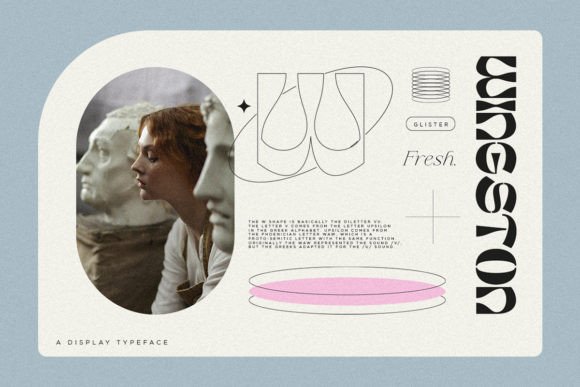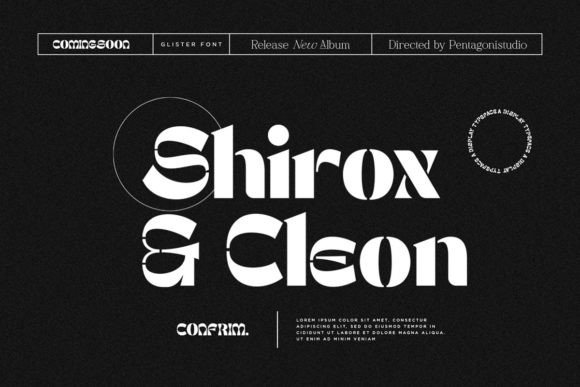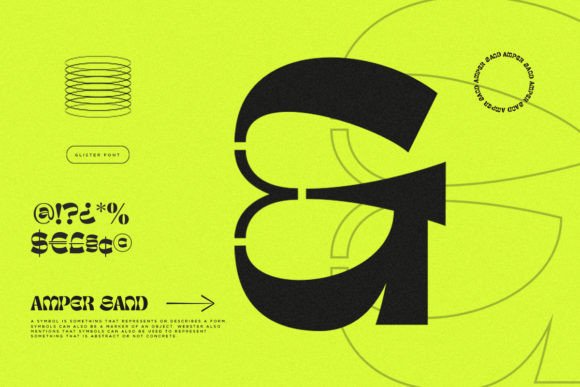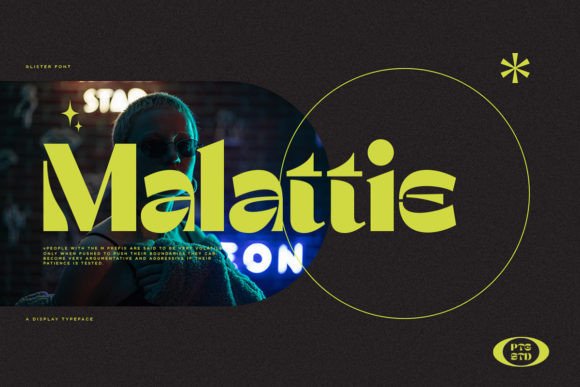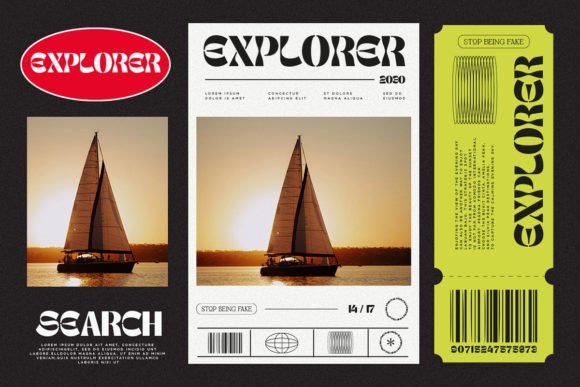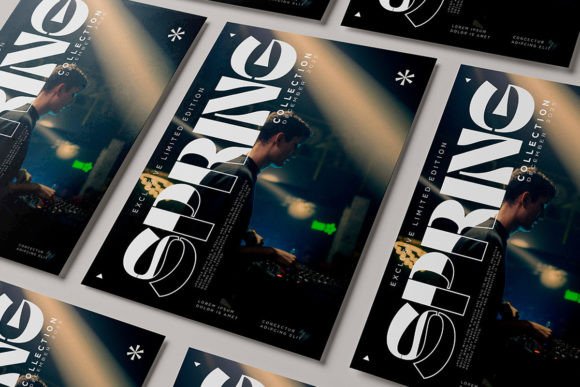
Introducing Glister Font: Elevate Your Designs with Elegance and Sophistication
Are you tired of using the same old fonts in your designs? Do you want to add a touch of elegance and sophistication to your creative projects? Look no further than Glister Font, a stylish and modern display font that is sure to take your designs to the highest levels. With its incredibly exquisite feel, Glister Font is the perfect choice for designers and crafters who want to make a statement.
What Makes Glister Font So Special?
Glister Font is a PUA (Private Use Area) encoded font, which means that you can access all of the glyphs and swashes with ease. This feature makes it incredibly easy to use and customize, allowing you to bring your creative vision to life. Whether you’re designing a logo, creating a social media graphic, or crafting a beautiful wedding invitation, Glister Font has everything you need to make your design shine.
Key Features of Glister Font
- Stylish and Modern Design: Glister Font boasts a sleek and contemporary design that is sure to turn heads. Its unique and elegant feel makes it perfect for a wide range of design projects.
- PUA Encoded: With PUA encoding, you can access all of the glyphs and swashes with ease, giving you complete creative control over your design.
- Exquisite Feel: Glister Font has an incredibly exquisite feel that is sure to add a touch of sophistication and elegance to your designs.
- Multipurpose: Whether you’re designing a logo, creating a social media graphic, or crafting a beautiful wedding invitation, Glister Font is the perfect choice.
Why Choose Glister Font?
There are many fonts on the market that claim to be stylish and modern, but Glister Font stands out from the crowd. Here are just a few reasons why:
- Unique Design: Glister Font has a unique and distinctive design that is sure to make your designs stand out.
- Ease of Use: With PUA encoding, Glister Font is incredibly easy to use and customize, even for those with limited design experience.
- High-Quality: Glister Font is a high-quality font that is designed to deliver exceptional results, even at large sizes.
How to Use Glister Font in Your Designs
Using Glister Font in your designs is easy. Here are a few tips to get you started:
- Pair it with Other Fonts: Glister Font pairs perfectly with other fonts, making it easy to create a unique and visually appealing design.
- Experiment with Swashes: With PUA encoding, you can access a wide range of swashes and glyphs, allowing you to add a personal touch to your design.
- Use it for Headings: Glister Font is perfect for headings and titles, making it a great choice for blog posts, social media graphics, and more.
Whether you’re a seasoned designer or just starting out, Glister Font is a must-have font for any creative project. Its unique design, ease of use, and high-quality construction make it an essential tool for anyone looking to add a touch of elegance and sophistication to their designs.